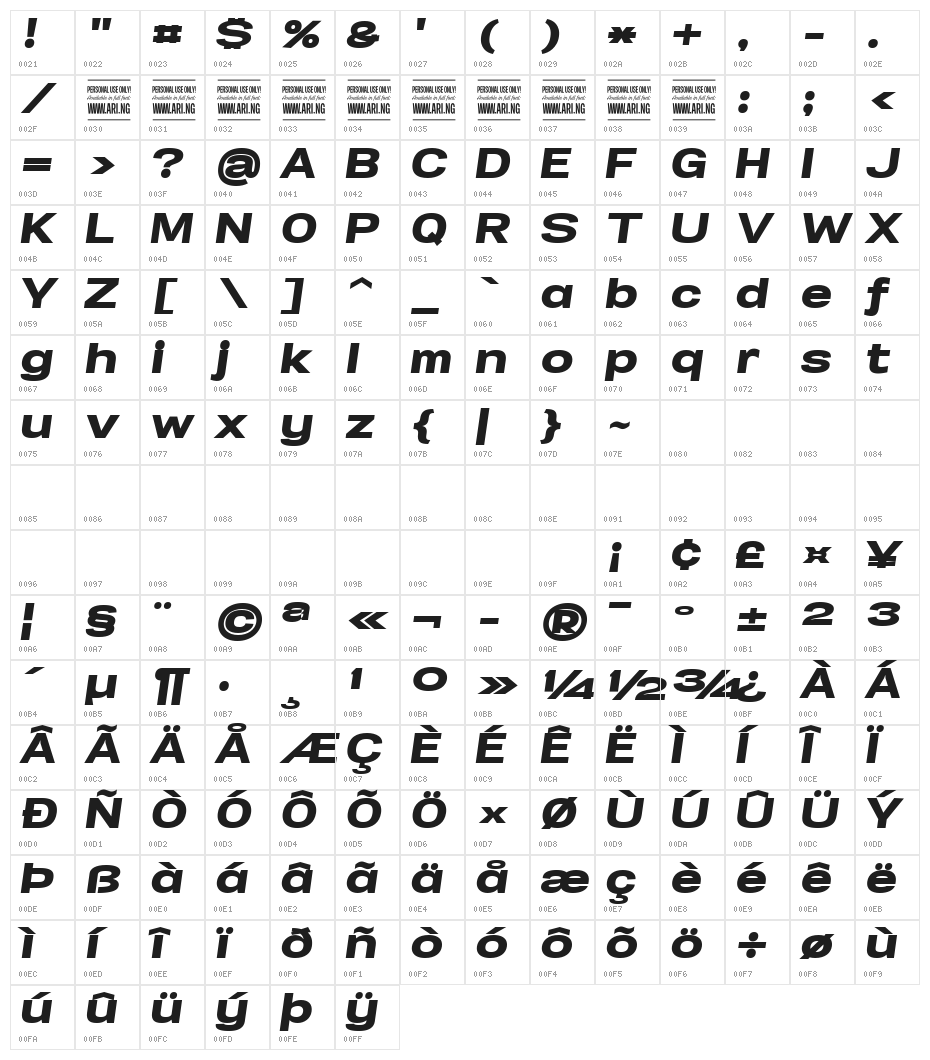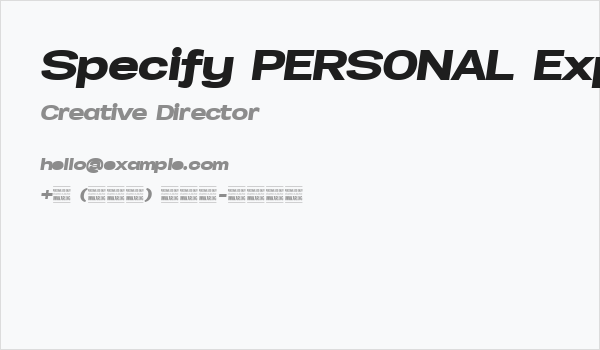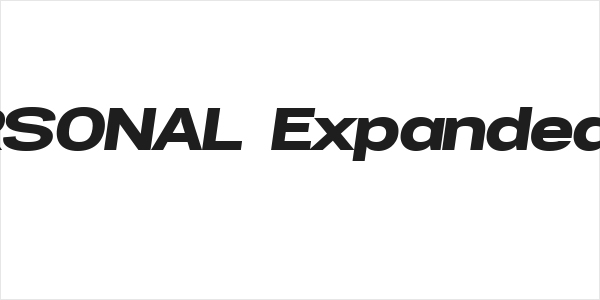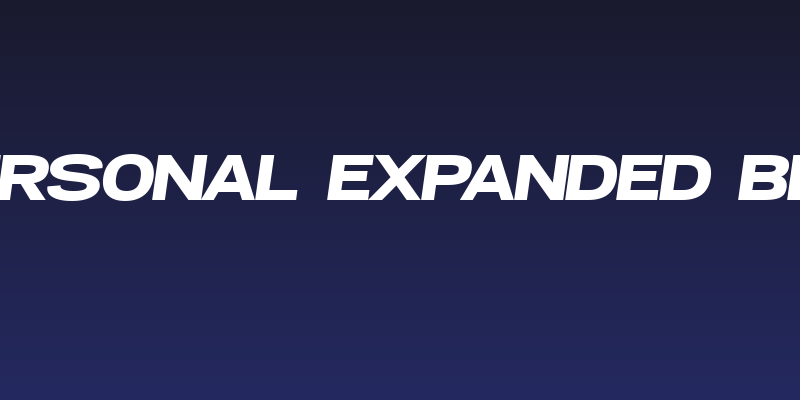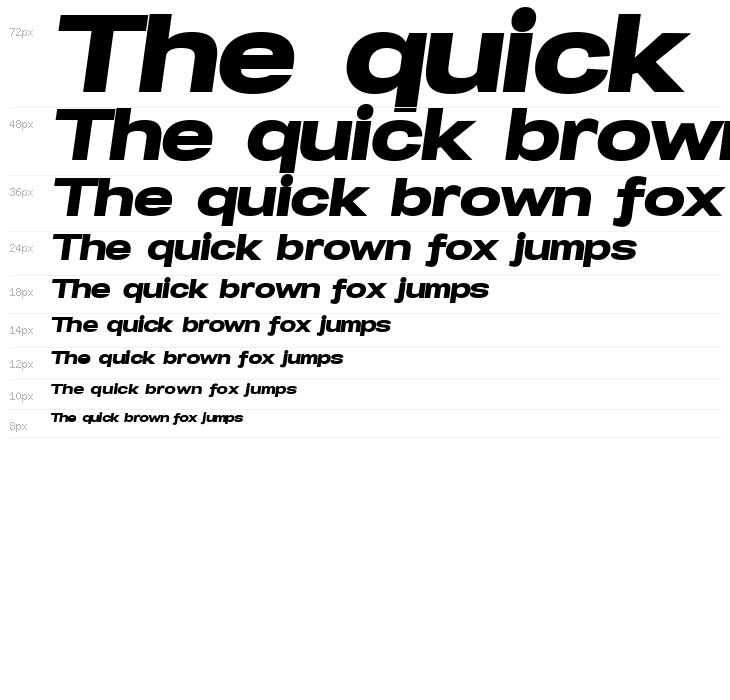
Specify PERSONAL Expanded Black Italic Font
Specify PERSONAL Expanded Black Italic Description
This font features a bold and dynamic style with an italic slant, giving it a sense of motion and energy. The characters are expanded, providing a wide and commanding presence on the page. The strokes are thick and consistent, contributing to a strong visual impact. The uppercase and lowercase letters maintain a uniform appearance, ensuring readability and cohesion. The numerals and special characters are designed to match the bold and italicized style, making them suitable for various design applications. Overall, this font exudes a modern and assertive aesthetic, ideal for projects that require a striking and contemporary look.
| Proposed Projects | Ideal for headlines, branding, advertising, and any design requiring a bold statement. |